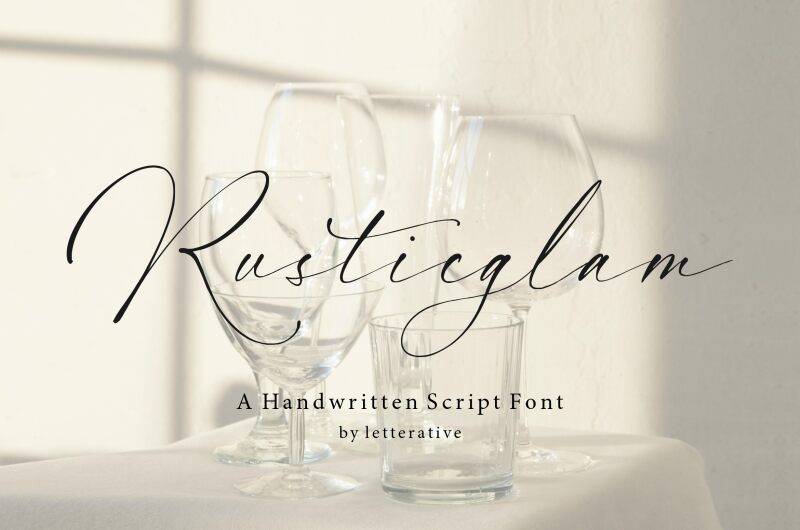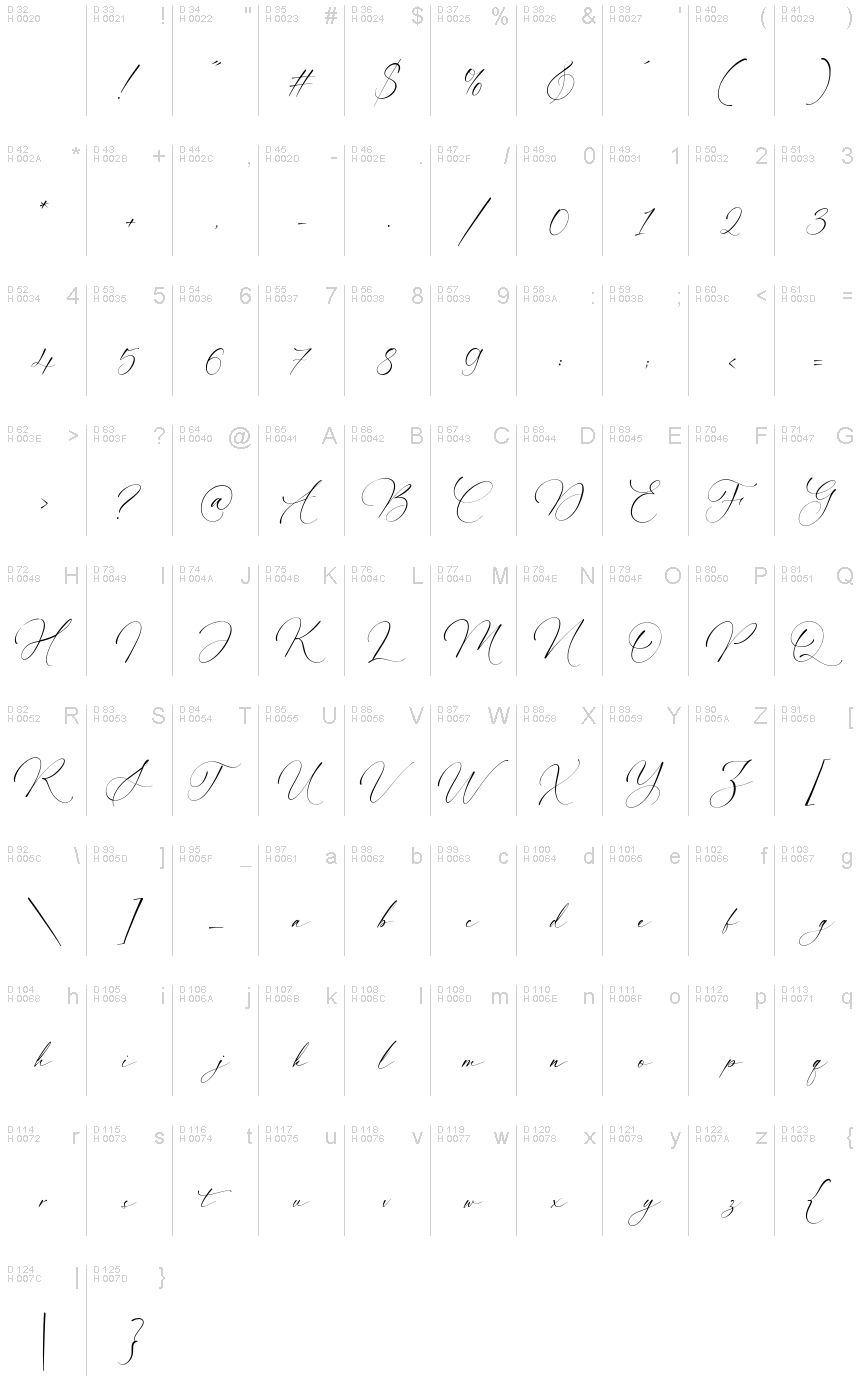
Rusticglam, crafted by Letterative Studio, is a font that exudes a natural elegance with its handwritten, signature style. It marries the charm of rustic artistry with a touch of sophistication, making it an exquisite choice for those seeking to add a personal and upscale flair to their designs. The light strokes give it an airy and delicate quality that's both inviting and stylish.
Ideal for branding, wedding invitations, or any project requiring a bespoke touch, Rusticglam promises to elevate your design with its distinctive blend of casual grace and modern panache. Whether adorning the pages of an artisanal lookbook or the header of a luxury blog, this font stands out as effortlessly chic yet warmly approachable.